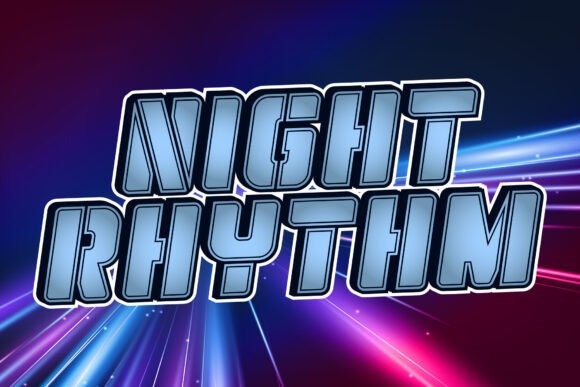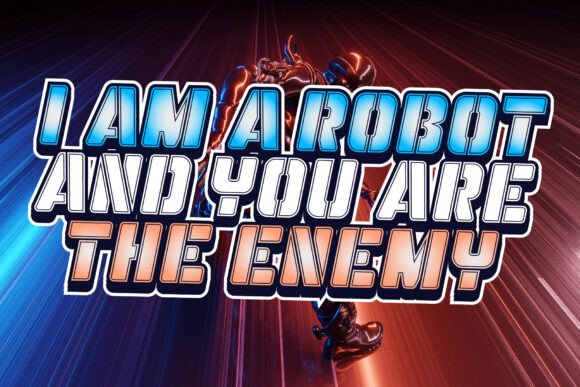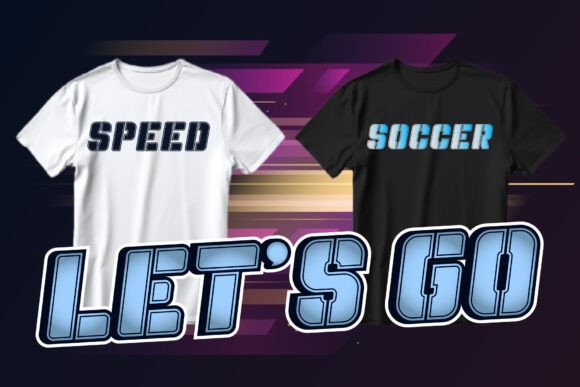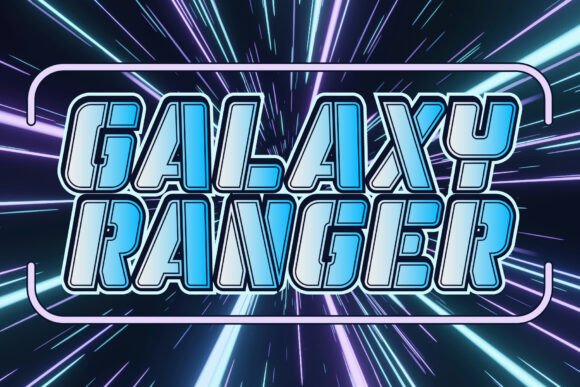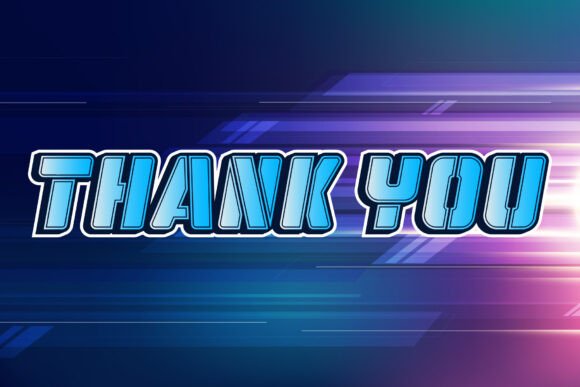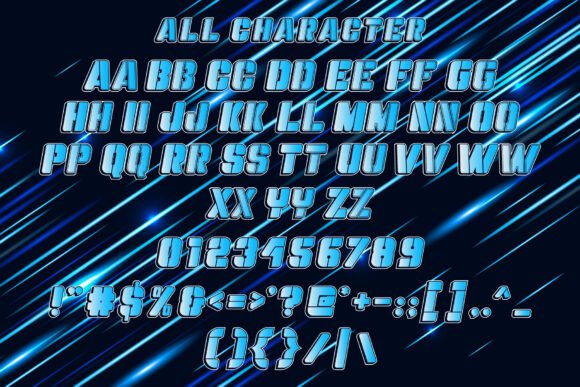
Introduction to Light Speed Font
Imagine you’re working on a project, and you’re struggling to find the perfect font to convey the energy and speed of your concept. You’ve tried countless options, but nothing seems to capture the essence of your creative vision. That’s where Light Speed Font comes in – a game-changing uppercase typeface designed to give your designs an instant boost of dynamism and style.
Whether you’re working on a high-octane sports project, a futuristic sci-fi concept, or a sleek automotive design, Light Speed Font is the ultimate design resource to take your creative project to the next level. With its modern cutouts and dynamic tilt, this font is perfect for titles, logos, posters, and any other design where you want to convey a sense of speed and movement.
Key Features of Light Speed Font
- High-quality design resource with a unique, futuristic aesthetic
- Perfect for creative projects requiring a bold, high-tech look, such as sci-fi themed posters, futuristic UI designs, or video game assets
- Designed to be highly legible at high resolutions, making it suitable for use in digital design applications and high-resolution print materials
Honest Review: Light Speed Font
As a designer, I’m always on the lookout for high-quality design resources that can elevate my creative projects. Recently, I came across the Light Speed Font, and I’m excited to share my honest review with you.
- ✨ The font’s sleek and modern design makes it perfect for futuristic-themed projects.
- ✨ The font is highly customizable, allowing you to adjust the size, color, and style to fit your project’s needs.
- ⚠️ It’s not suitable for projects that require a more traditional or classic font style.
Overall, I’m impressed with the Light Speed Font’s design and functionality. It’s a great addition to any designer’s toolkit, and I’d definitely recommend it for creative projects that require a modern and futuristic look.
Tips for Getting the Most Out of Light Speed Font
Pair it with other creative fonts for a unique look.
Experiment with different font sizes and colors to achieve the desired effect.
Use Light Speed Font for creative projects such as graphic design, digital art, or web design.
It’s a versatile design resource that can be used in various applications, including print and digital media.